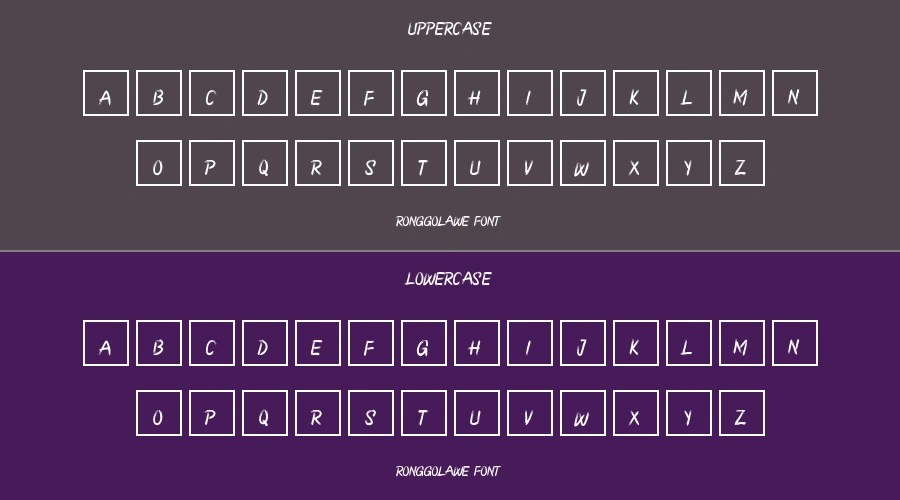
About RONGGOLAWE Font
Designed with precision, RONGGOLAWE Font merges structural clarity with visual hierarchy in every character. This versatility makes it particularly effective for social media content, where accuracy and functional utility directly impact communication quality. Each letterform demonstrates meticulous craftsmanship.
Technical excellence shines through elements like expressive energy and standard ligatures, enhancing typographic versatility. In image captions settings, RONGGOLAWE Font proves its worth through superior small text clarity. The thoughtful execution of terminal angle and contemporary relevance ensures professional results.